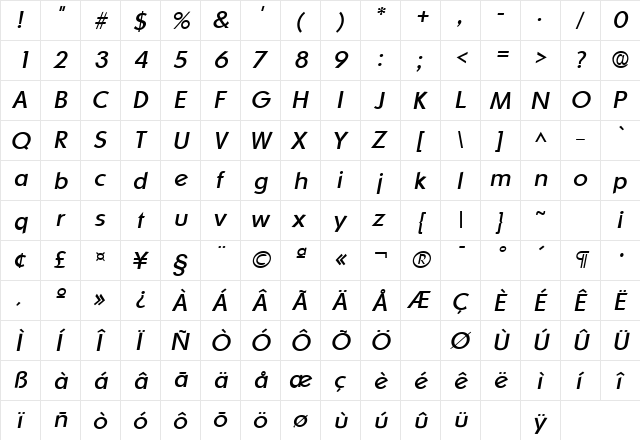
Ornitons Italic
Design Context for Ornitons Typeface
Ornitons offers clean, dependable letterforms without strong stylistic allegiance, making it a practical choice for designers who need flexibility. The slanted form adds forward momentum and visual energy.
Pro Tip: Use Ornitons for emphasis, pull quotes, and subheadings where its slanted energy can add rhythm to the layout.